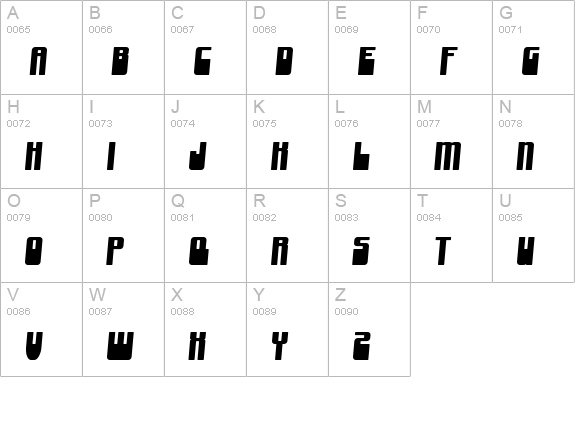
SF Groove Machine Font Details
SF Groove Machine is a visually captivating font that exudes a sense of modernity and excitement. Its sleek and dynamic design captures the essence of the urban landscape, making it the perfect choice for projects that require a touch of urban sophistication. With its bold and futuristic letterforms, SF Groove Machine adds a powerful and energetic vibe to any design. Whether you're creating eye-catching posters, attention-grabbing headlines, or cutting-edge branding materials, this font is sure to make a statement. One of the most appealing aspects of SF Groove Machine is that it is freely available to download at FontsMarket.com. This means that you can instantly add this striking font to your design arsenal without having to spend a dime. Its versatility and accessibility make it a valuable asset for both professional designers and aspiring creatives. The carefully crafted letterforms of SF Groove Machine are enhanced by its sleek lines and geometric shapes, giving it a distinctive and contemporary look. Its bold weight ensures high legibility, even at small sizes, making it suitable for a wide range of applications. Whether you're designing for music events, fashion campaigns, or tech startups, SF Groove Machine will effortlessly inject a sense of style and modernity into your projects. Its unique aesthetic will captivate your audience and leave a lasting impression. Don't miss the opportunity to enhance your designs with the electrifying energy of SF Groove Machine. Visit FontsMarket.com today to freely download this remarkable font and unleash your creativity like never before.